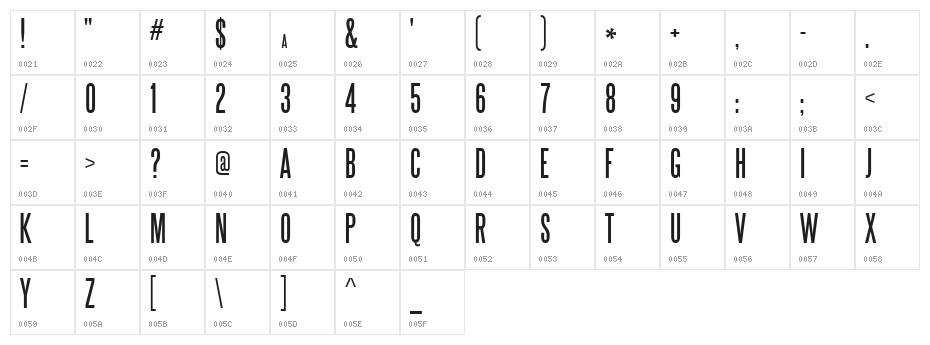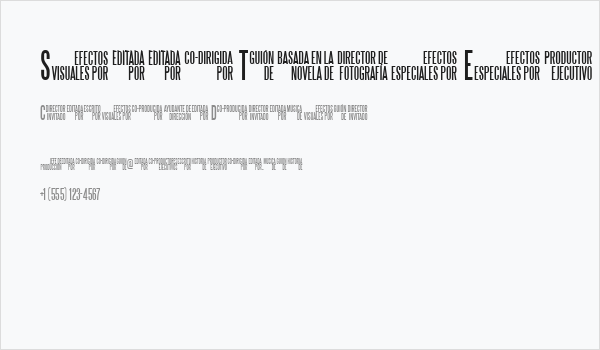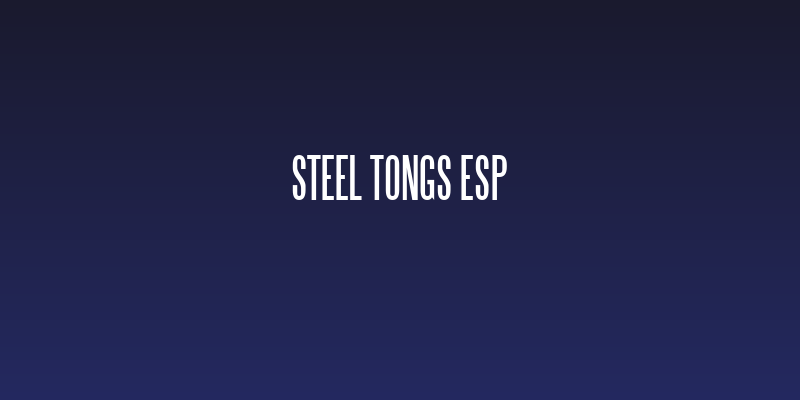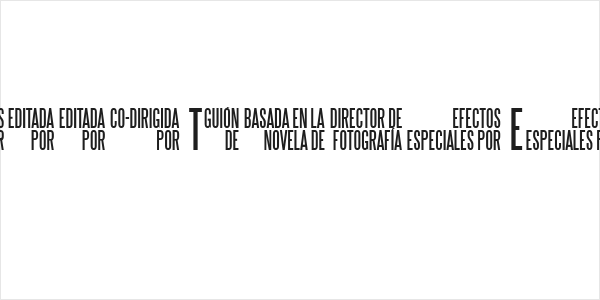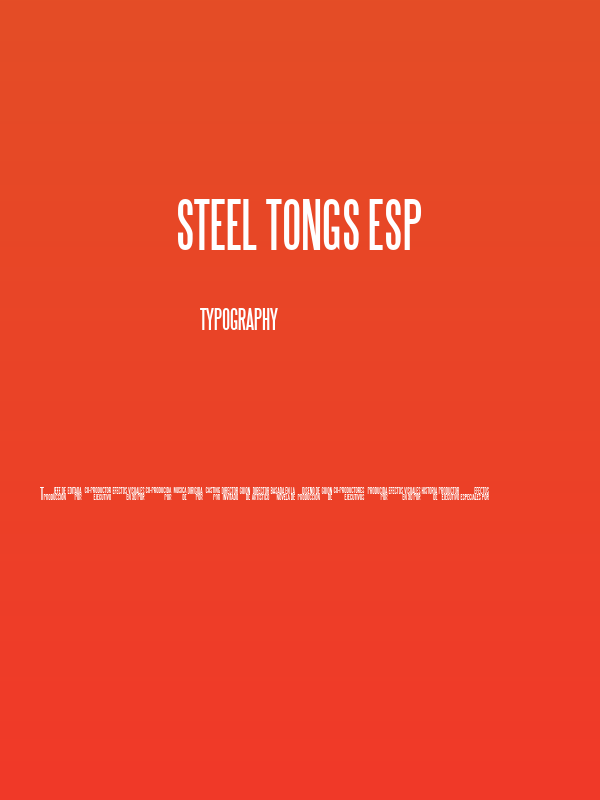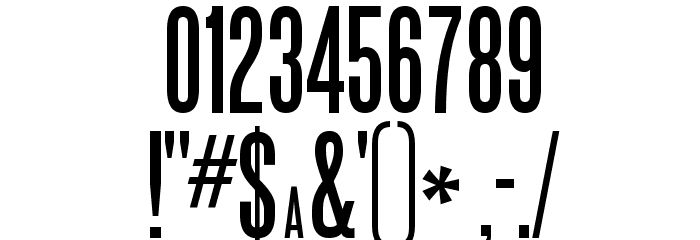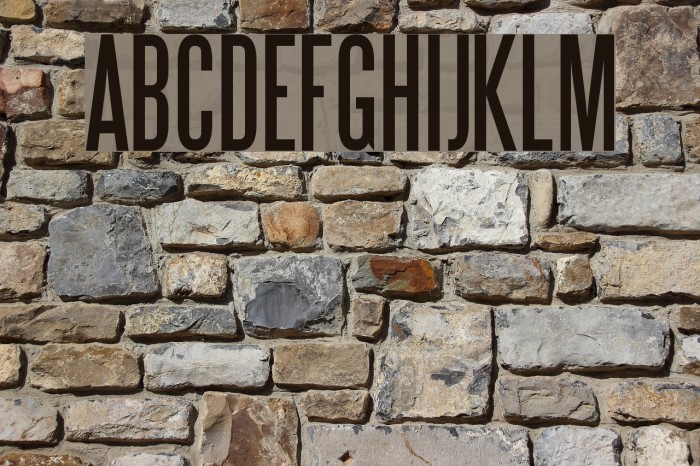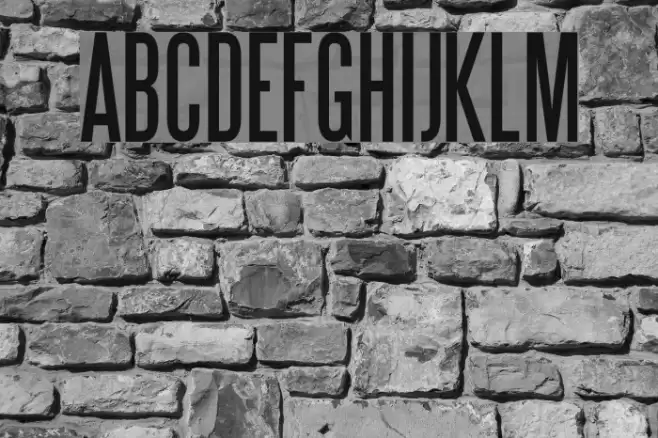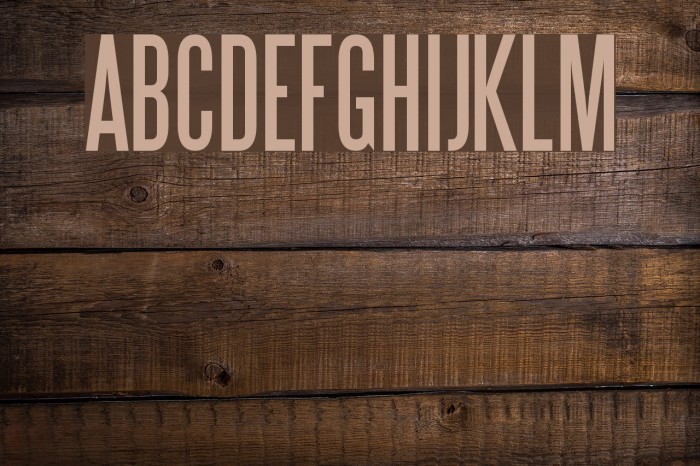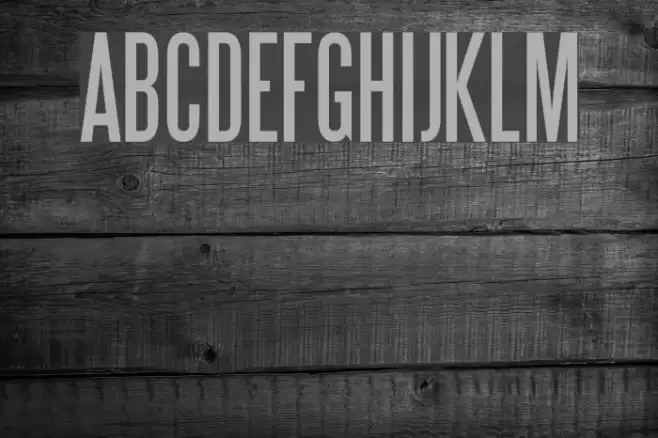
Steel Tongs Esp Font
Steel Tongs Esp Description
This font features a bold and condensed style, characterized by tall, narrow letters with a strong vertical emphasis. The uppercase letters are particularly striking, with consistent stroke widths that convey a sense of authority and modernity. The lowercase letters maintain the same condensed form, ensuring uniformity across text. Numbers and special characters are designed to match the overall aesthetic, providing a cohesive look. The font's clean lines and lack of serifs make it highly legible, even at smaller sizes, while its boldness ensures it stands out in any context.
| Proposed Projects | Ideal for movie posters, headlines, branding, and any project requiring a strong visual impact. |